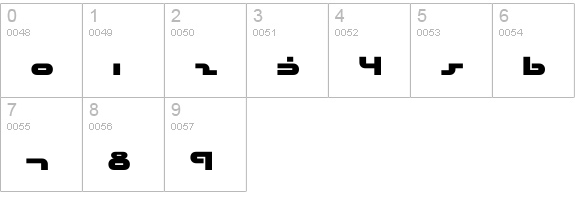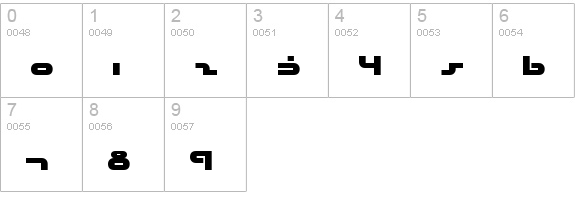
uni-sol Font Details
Uni-Sol Font is a stunning and versatile typeface that embodies elegance and modernity. With its clean lines and balanced proportions, this font is perfect for a wide range of design projects, from branding and advertising to web design and editorial layouts. One of the standout features of Uni-Sol Font is that it is available for free. Yes, you heard it right! This exceptional font can be freely downloaded at FontsMarket.com, making it accessible to designers and enthusiasts alike. Whether you are a professional designer looking to add a touch of sophistication to your latest project or simply a typography enthusiast eager to explore new fonts, Uni-Sol Font offers endless possibilities. Its wide range of weights and styles allows you to experiment and create visually captivating designs that will leave a lasting impression. The versatility of Uni-Sol Font is further enhanced by its extensive language support, making it suitable for use in various regions and cultures. From English to Spanish, French to German, and beyond, this font ensures that your message is effectively communicated to a global audience. In addition to its aesthetic appeal and practicality, Uni-Sol Font is also easy to work with. Its well-crafted letterforms ensure legibility at any size, whether it's used in small body text or large headlines. The attention to detail and meticulous design make this font a reliable choice for any design project. So why wait? Download Uni-Sol Font today and unlock the potential to create captivating designs that stand out from the crowd. With its free availability at FontsMarket.com, you can elevate your design game without breaking the bank. Don't miss out on this incredible opportunity to enhance your typography toolbox with this exceptional font!